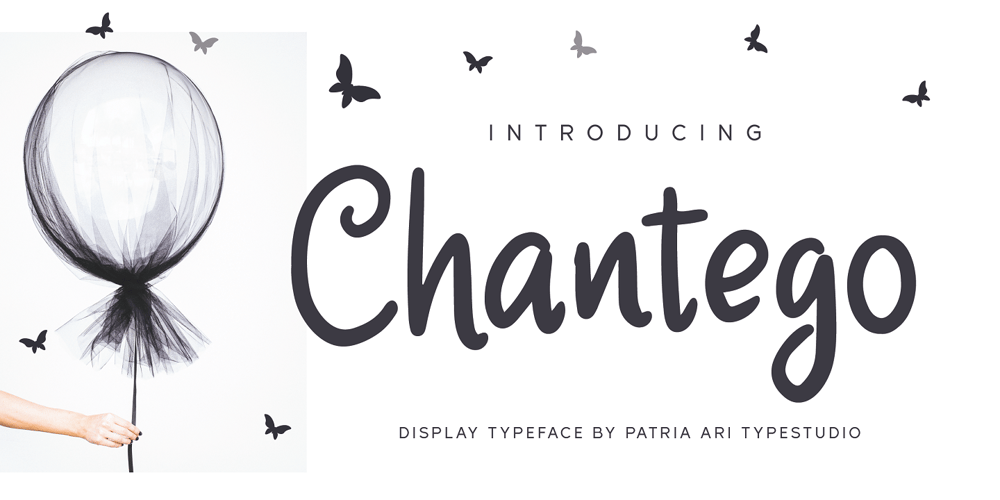
Chantego Font Family was designed by Patria Ari Wijonarko and published by Patria Ari. Chantego contains 1 styles and family package options. Chantego is a playful hand drawn display typeface with rough marker shapes. This font suit for apparel, branding, logo, social media posts, advertisements, product packaging, product designs, illustration, etc.